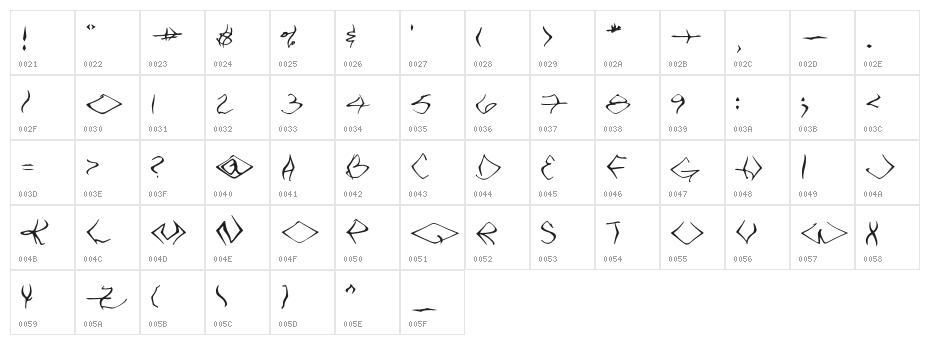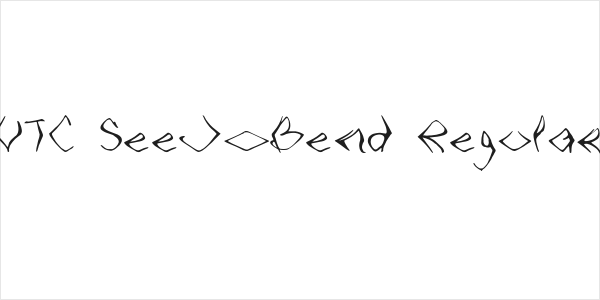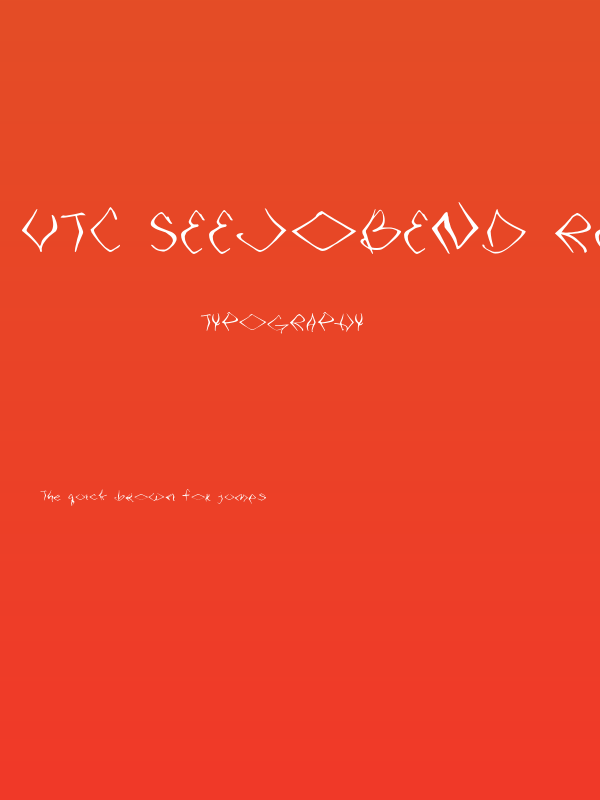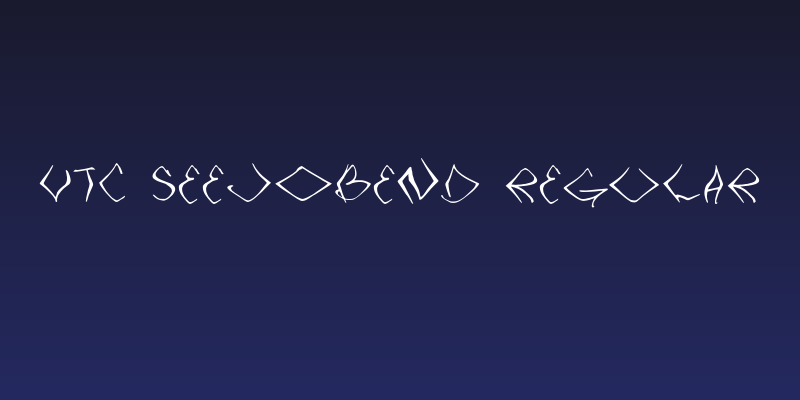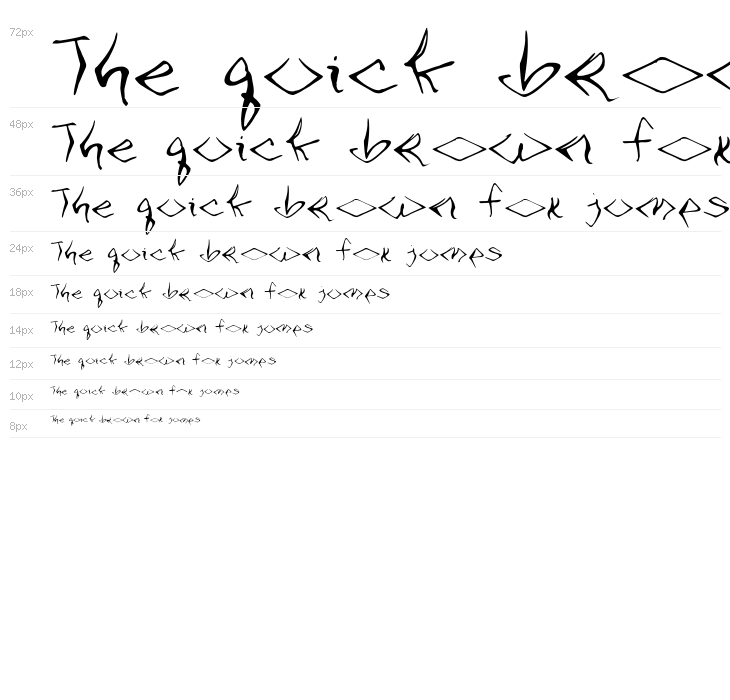
VTC SeeJoBend Regular Font
VTC SeeJoBend Regular Description
This font features a highly stylized and artistic design, characterized by sharp, angular lines and a dynamic, flowing appearance. The characters exhibit a unique blend of geometric and organic forms, creating a sense of movement and energy. The uppercase and lowercase letters maintain a consistent style, with exaggerated curves and pointed edges that give the font a distinctive, edgy look. The numerals and special characters follow the same design principles, ensuring a cohesive visual identity. This font is ideal for creative projects that require a bold, unconventional aesthetic.
| Overall Style | Modern, Artistic |